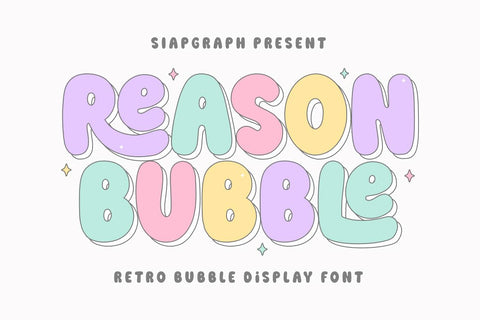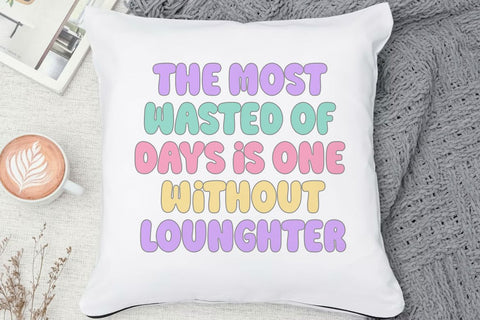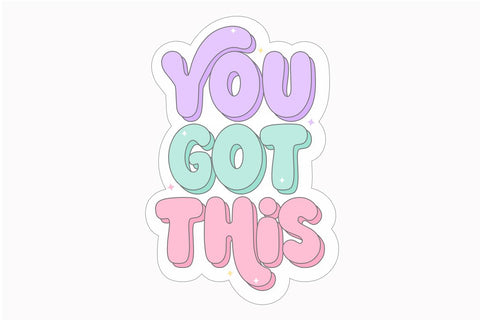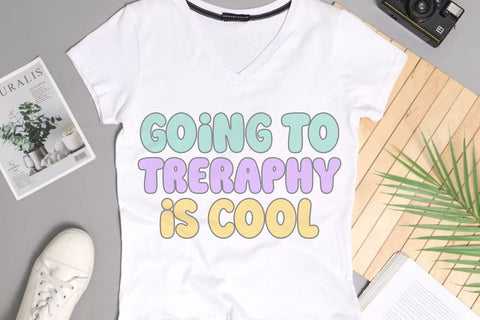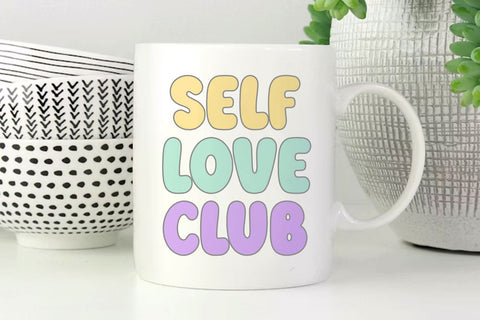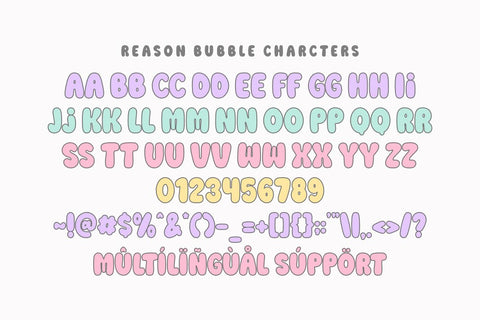
Reason Bubble - Retro Bubble Font
Reason Bubble is a retro bubble display font that radiates joy and playfulness. With its thick, rounded letterforms and charming, bubbly aesthetic, this typeface is perfectly crafted for designs that need to look friendly, fun, and eye-catching. The bouncy, dimensional look of this font adds an instant sense of energy to your creative projects. Its clean, bold construction is specifically optimized for the crafting community, ensuring a seamless and frustration-free experience for vinyl cutting, sublimation, and high-quality digital printing.
Perfect for: creating high-converting SVG cut files, personalized stickers, kids' party decorations, adorable nursery wall art, custom t-shirt designs, and vibrant social media graphics. Whether you are a professional Print on Demand (POD) seller or a dedicated DIY enthusiast, this font offers the perfect balance of readability and whimsical charm for any project.
Great for holiday themes such as Birthdays, Summer parties, Children's Day, and Back to School events, adding a sweet, optimistic, and bouncy personality to all your seasonal designs!